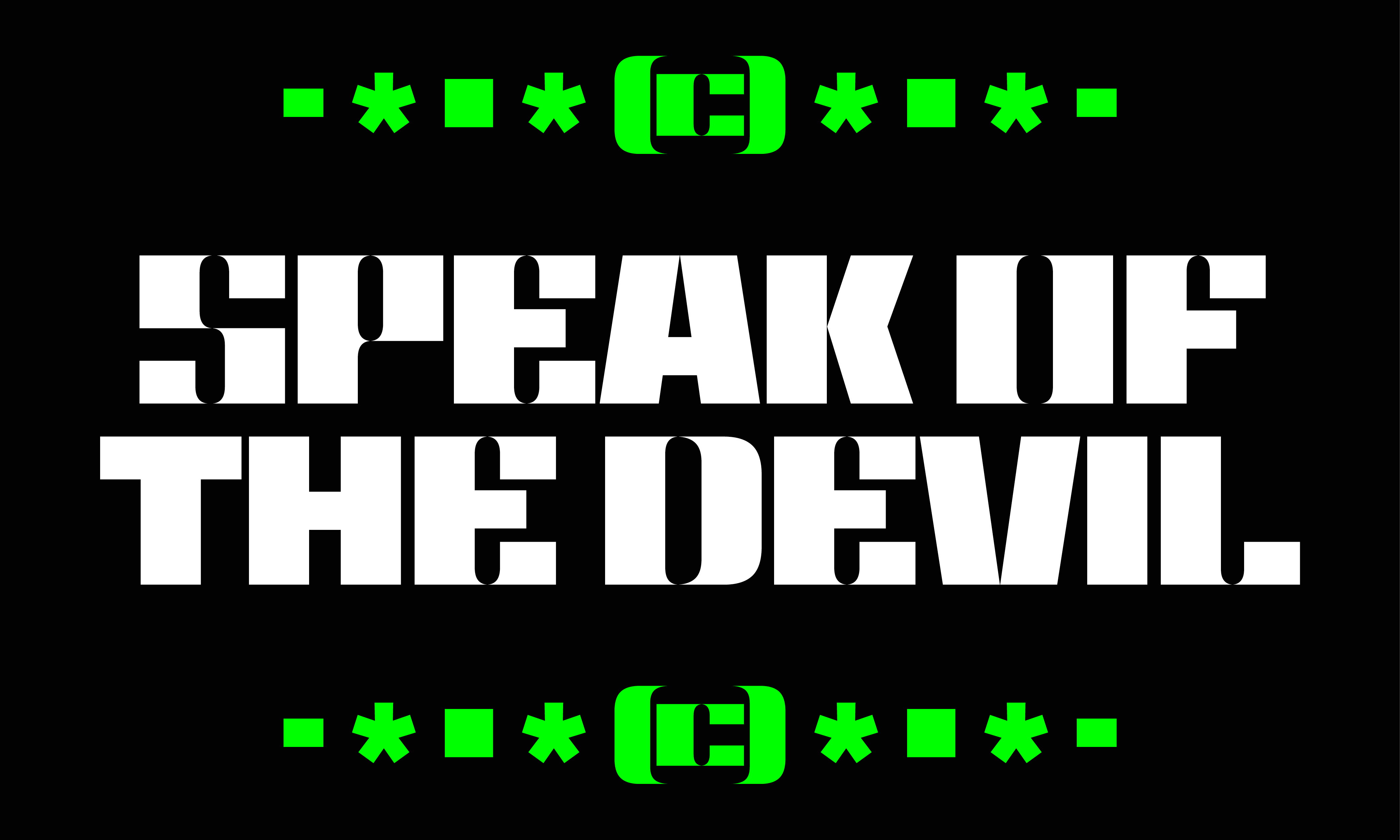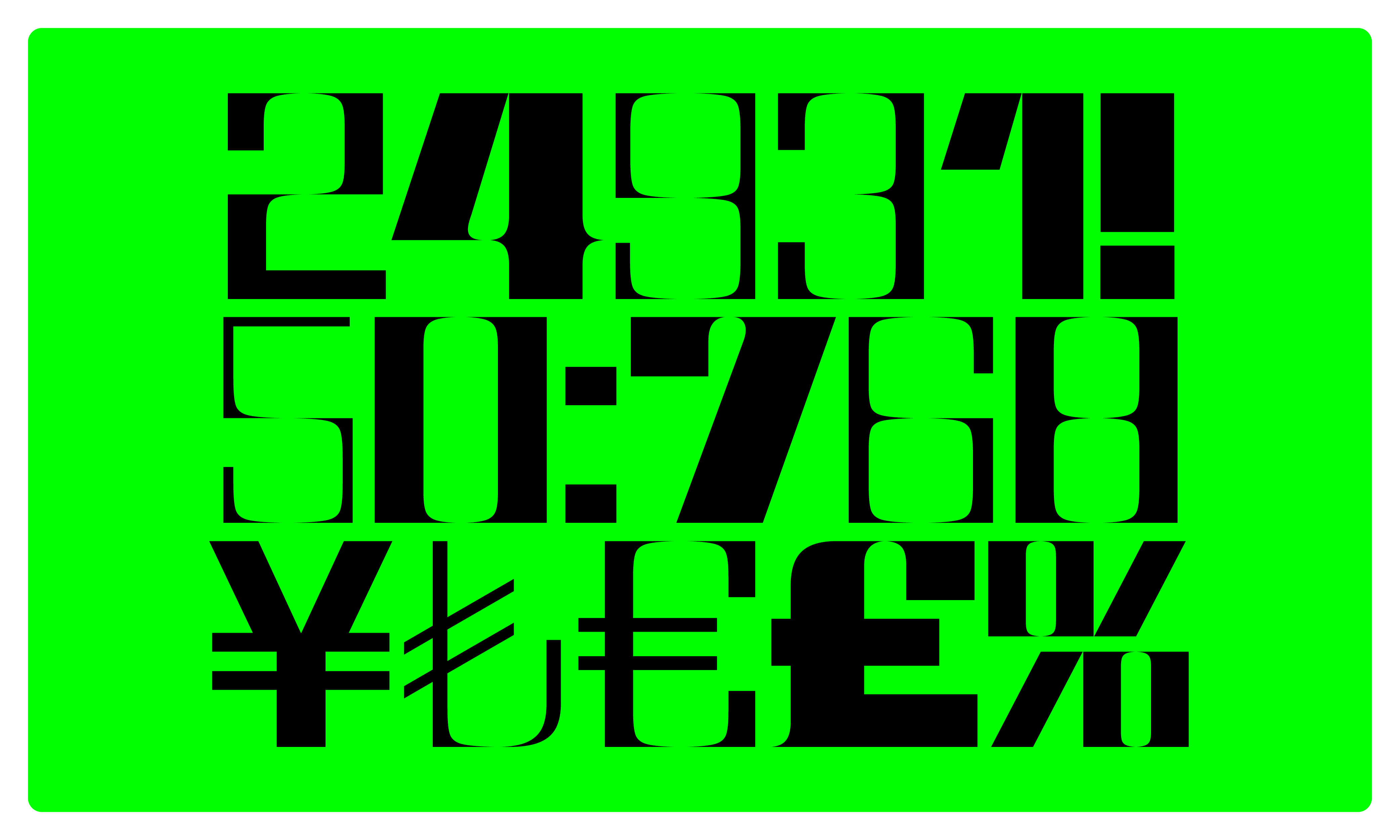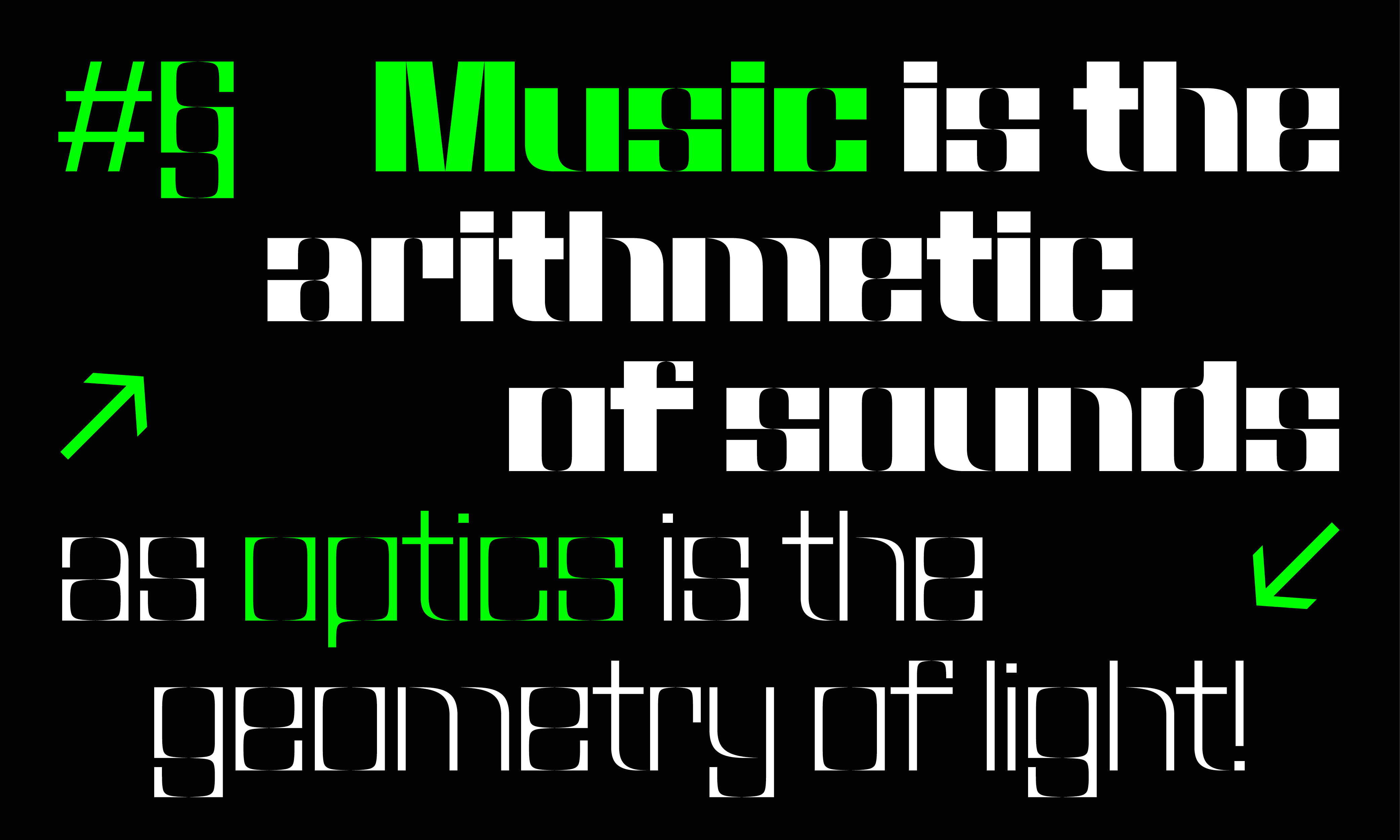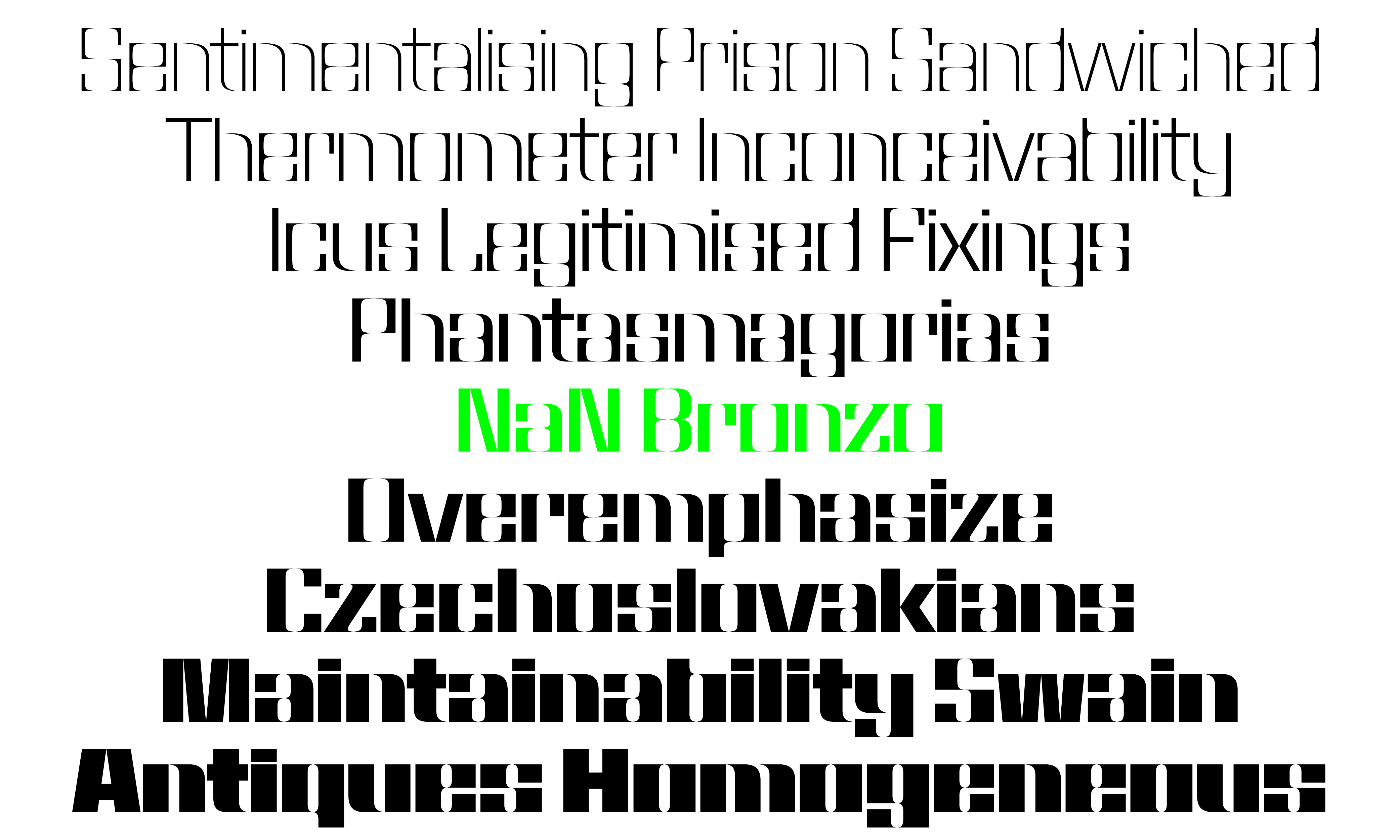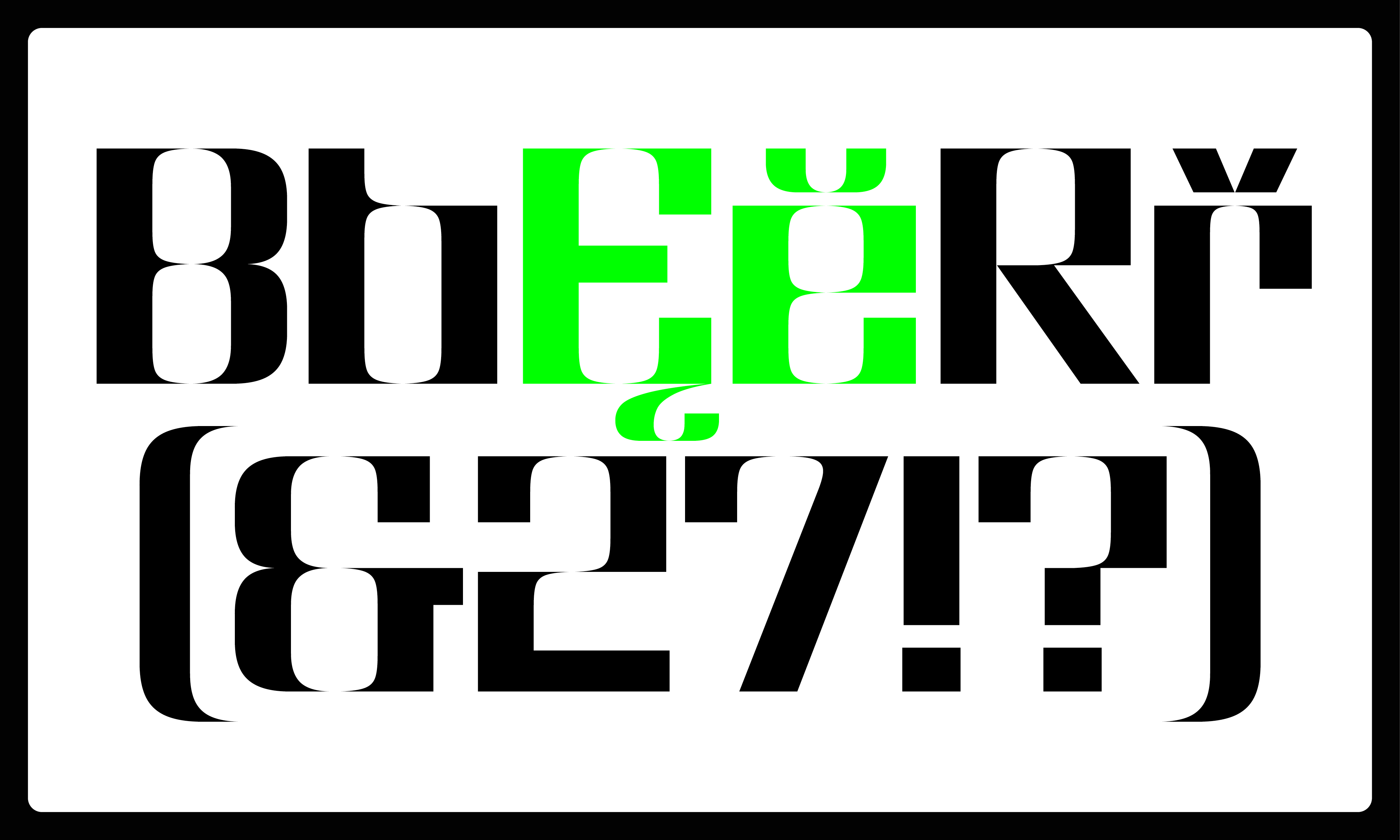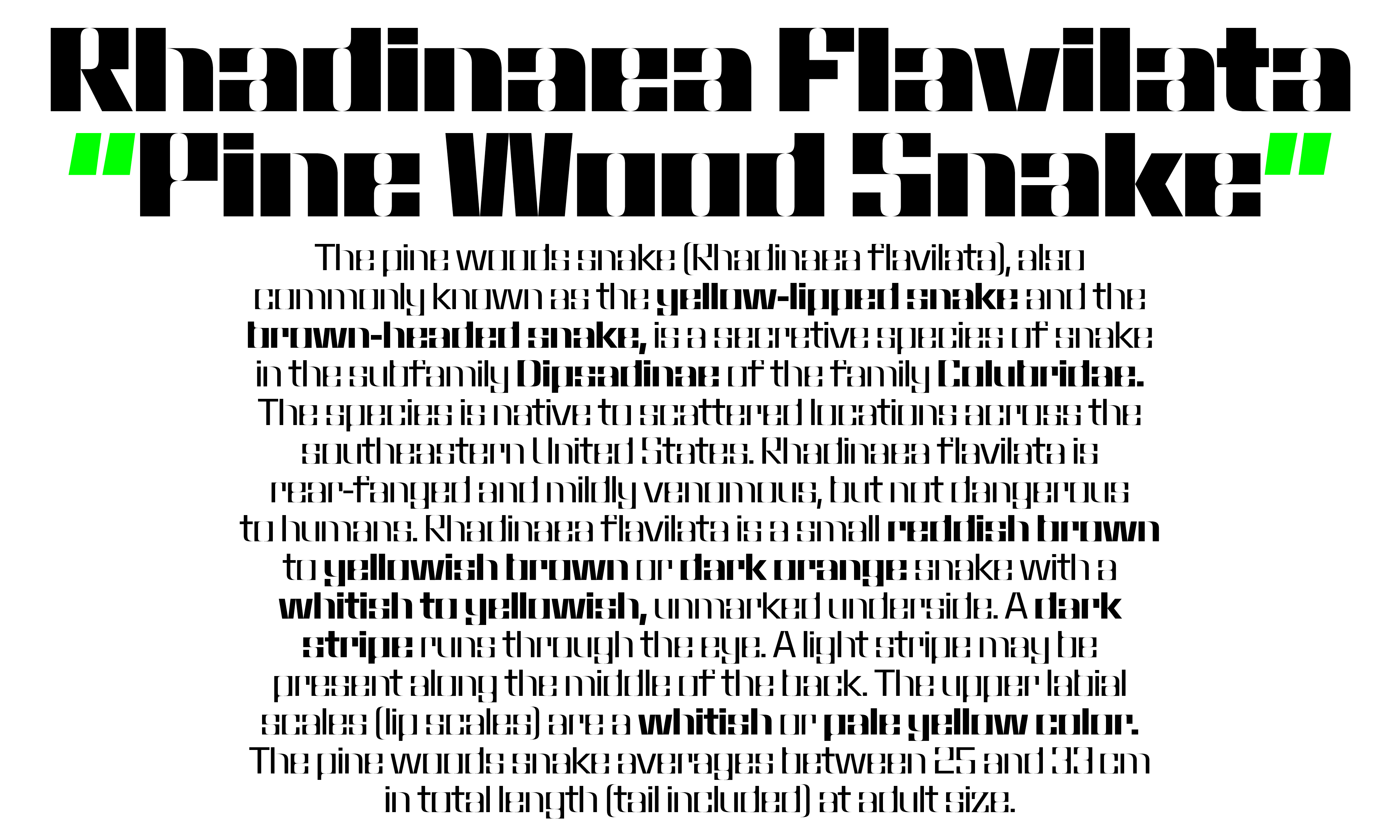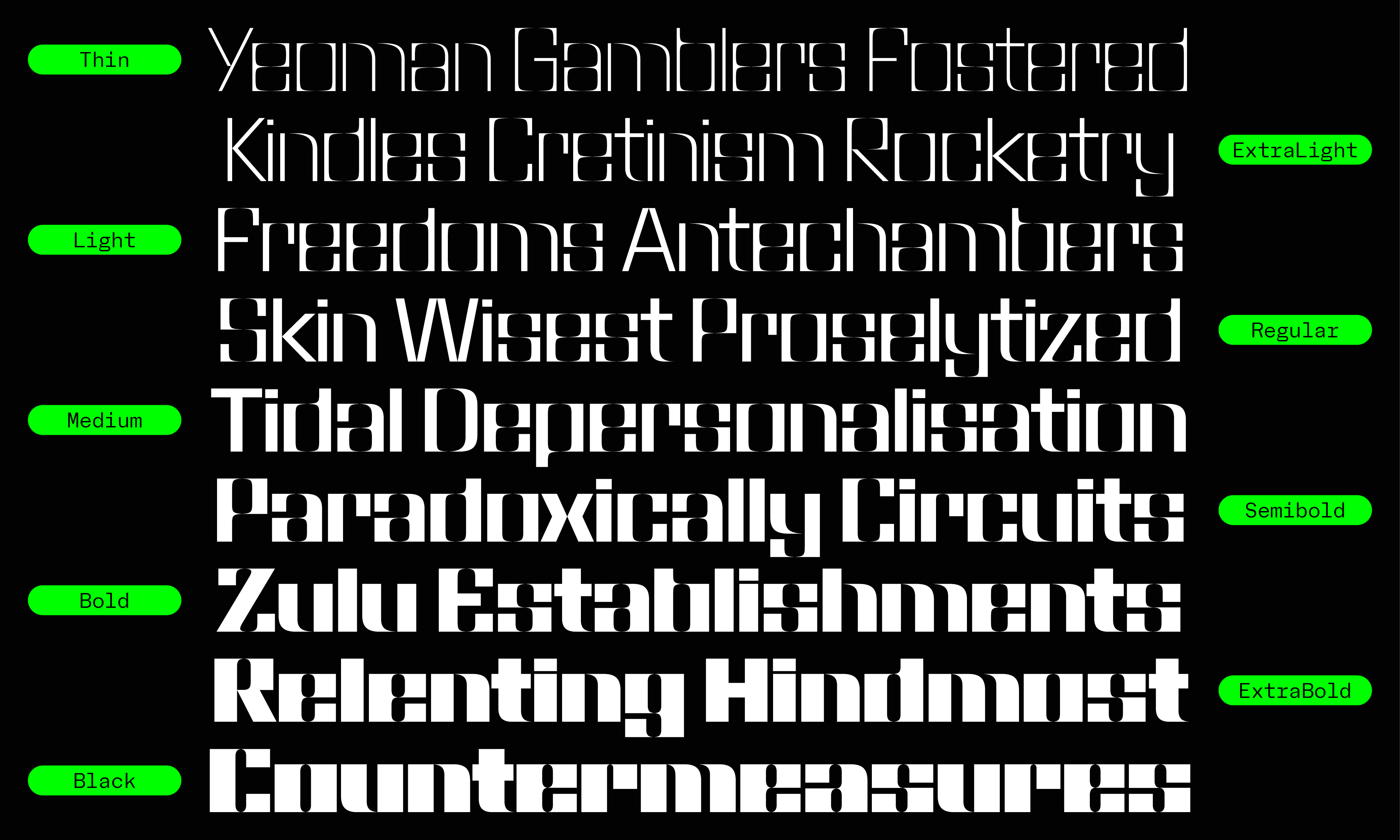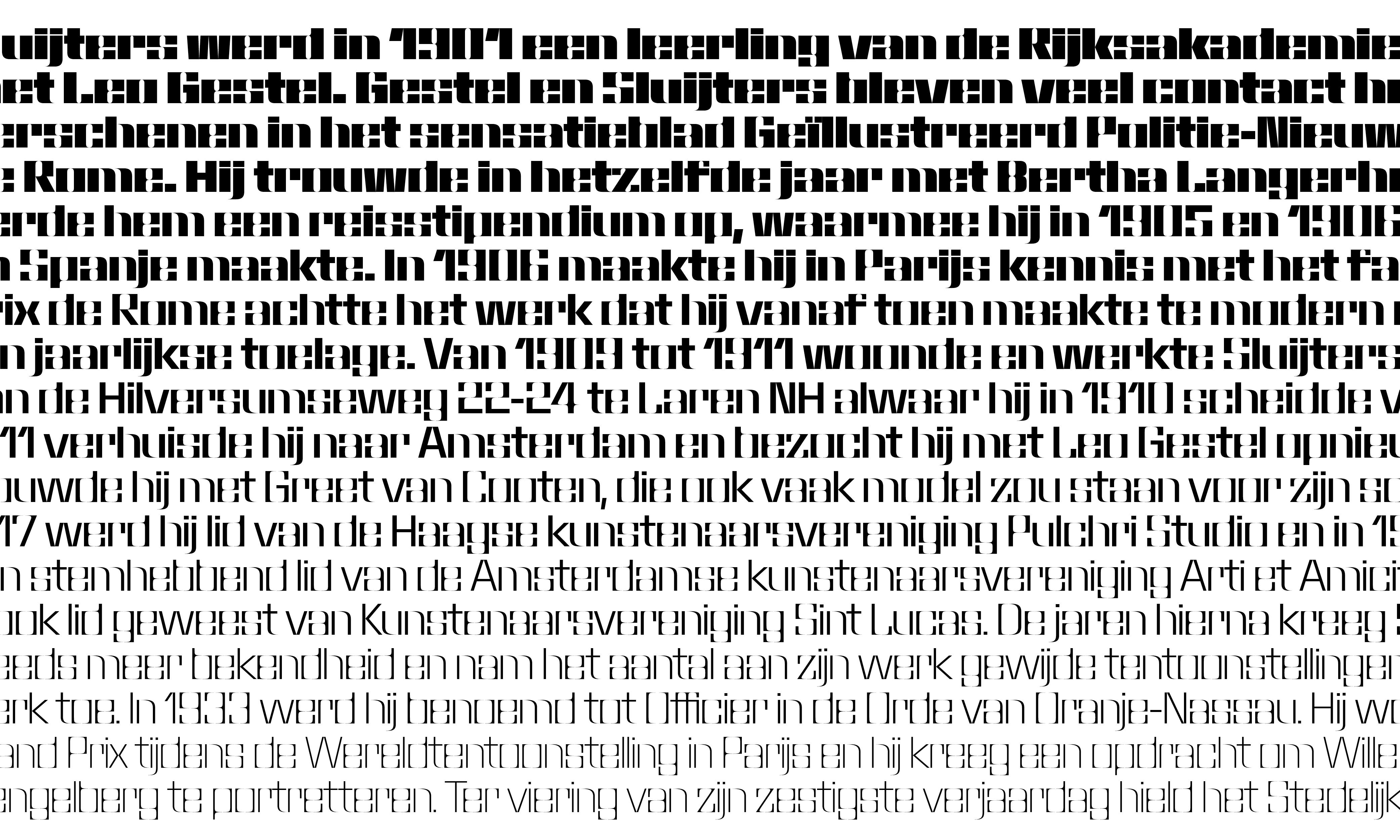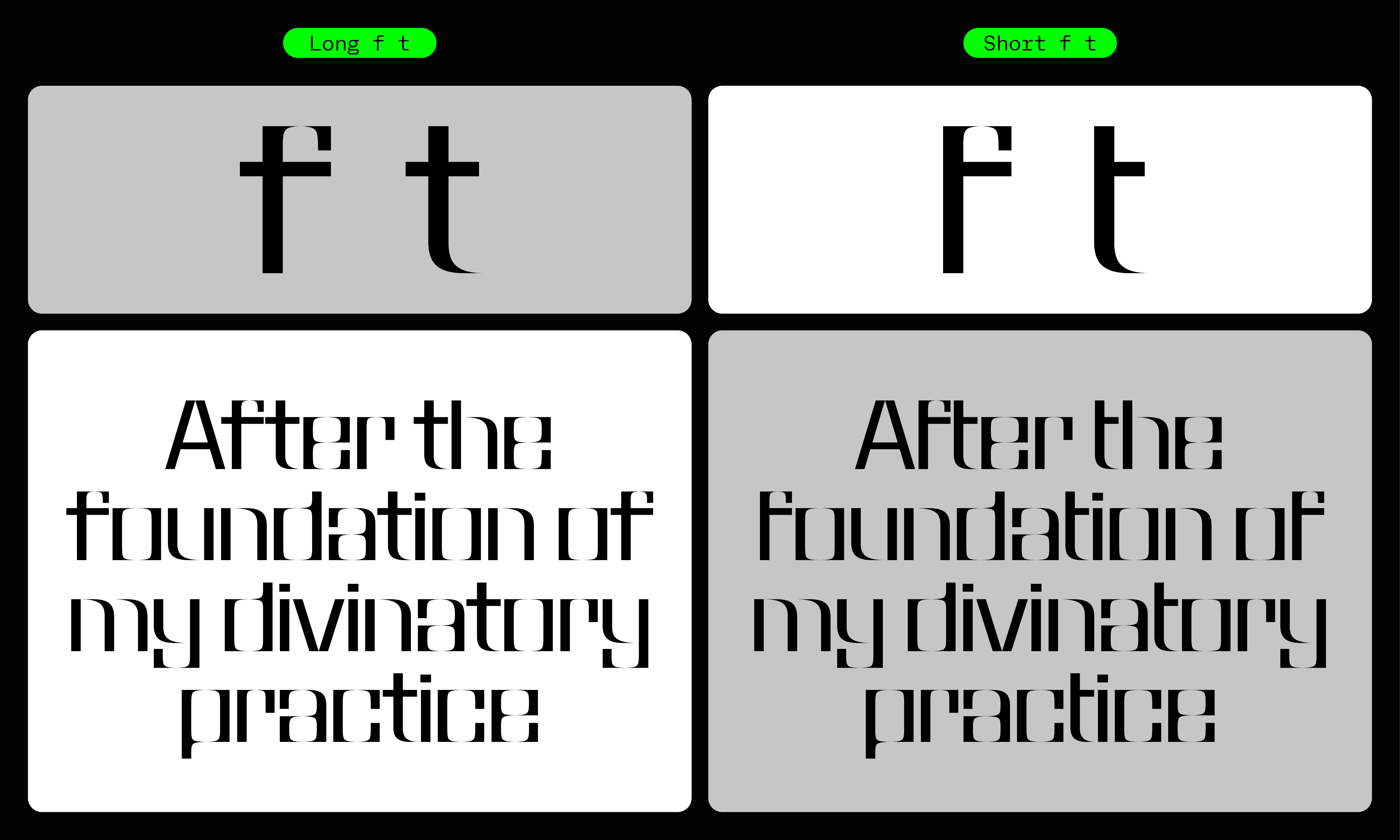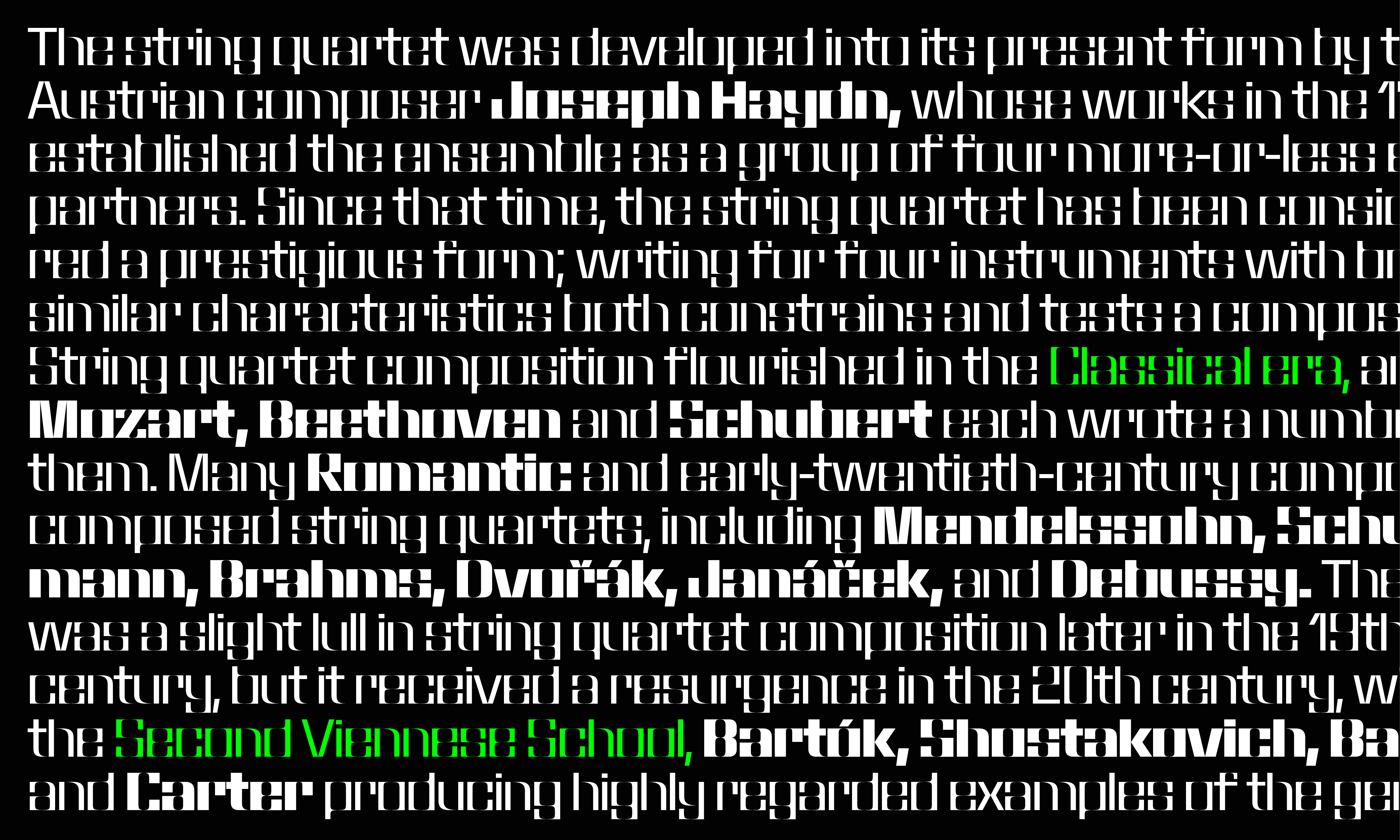
NaN Bronzo family
by NaN
NaN Bronzo
NaN Bronzo, a brutalist stencil typeface withsharp corners and a distinctive curves-inside / angles-outside paradygm.